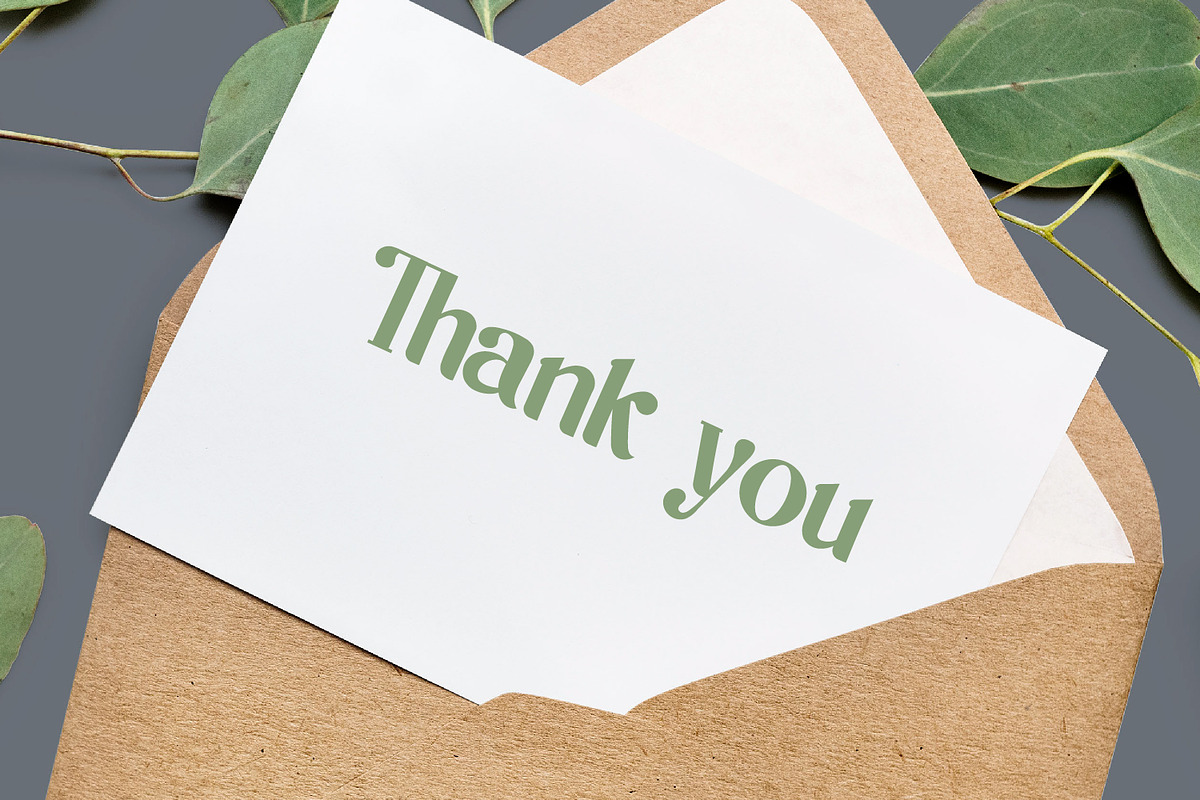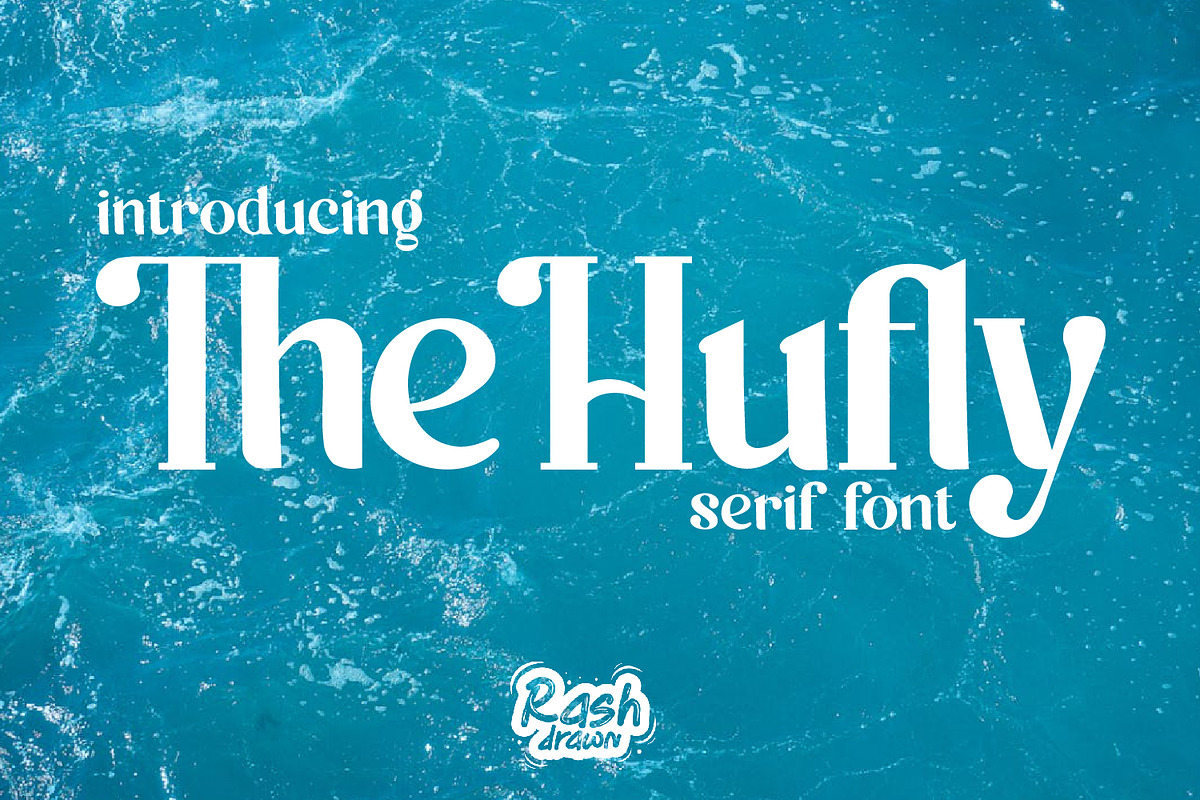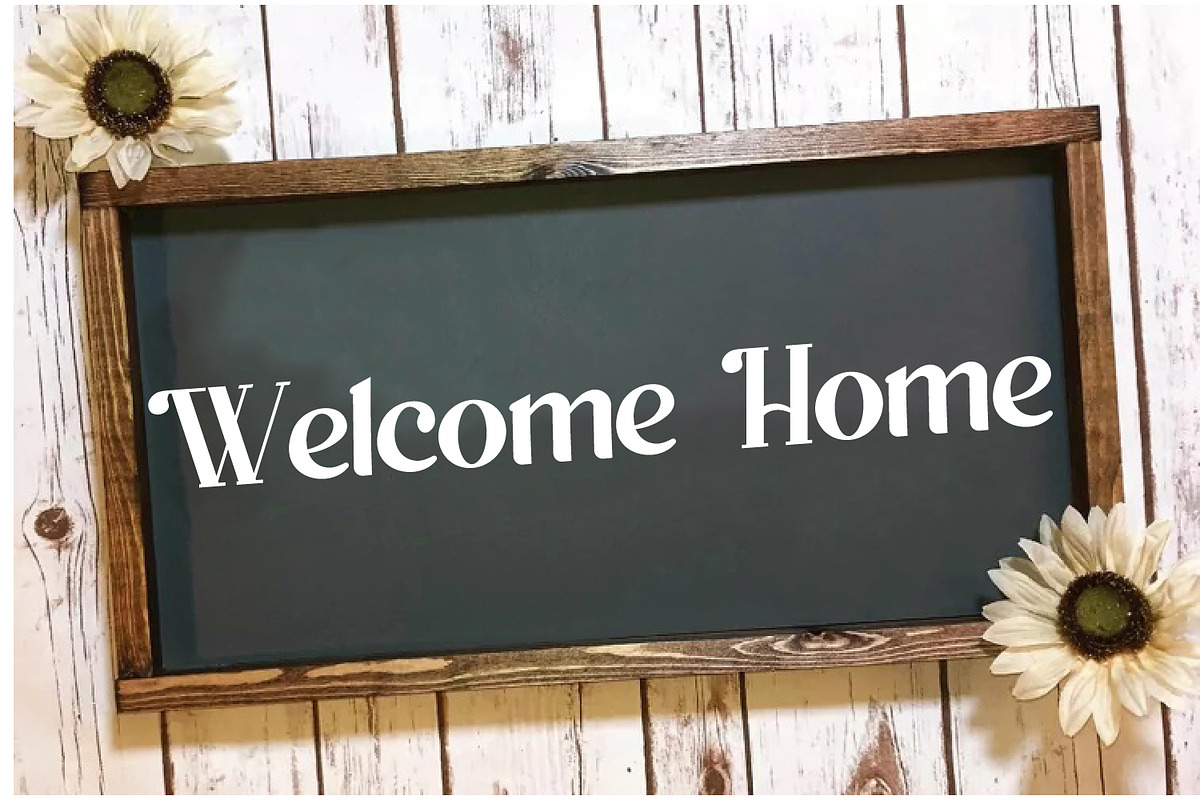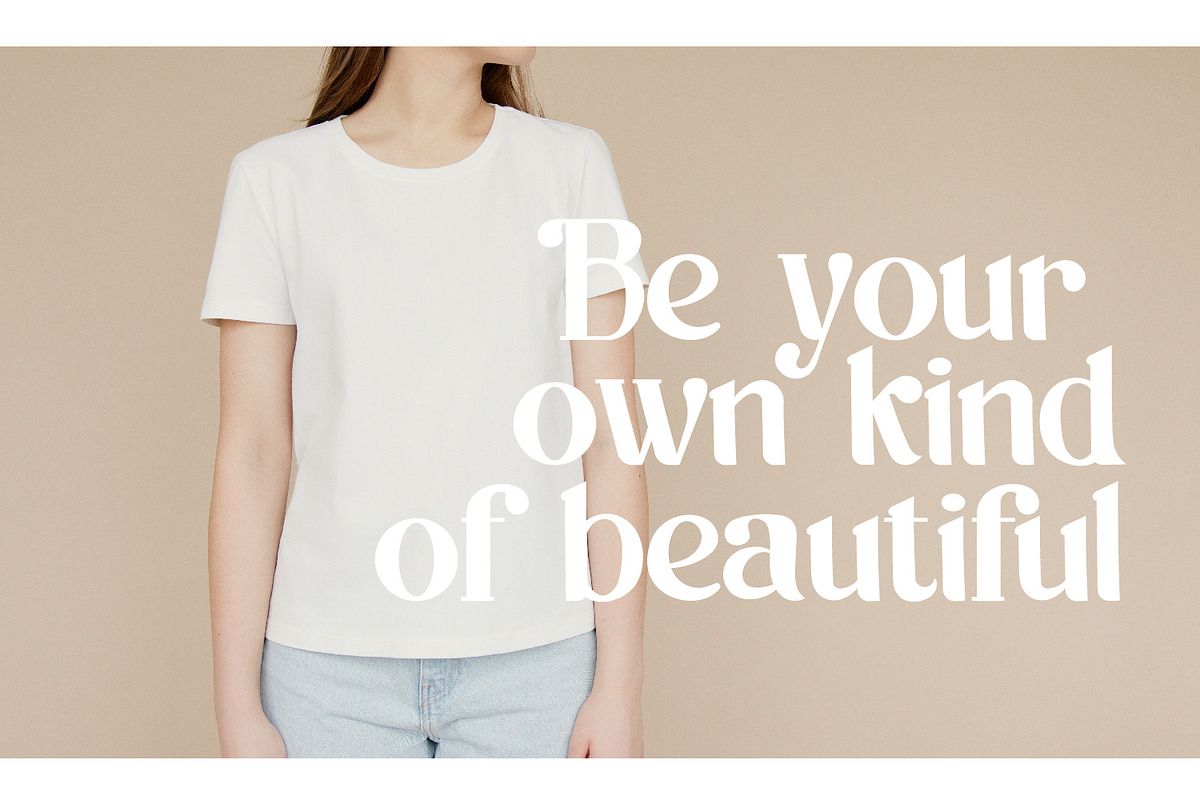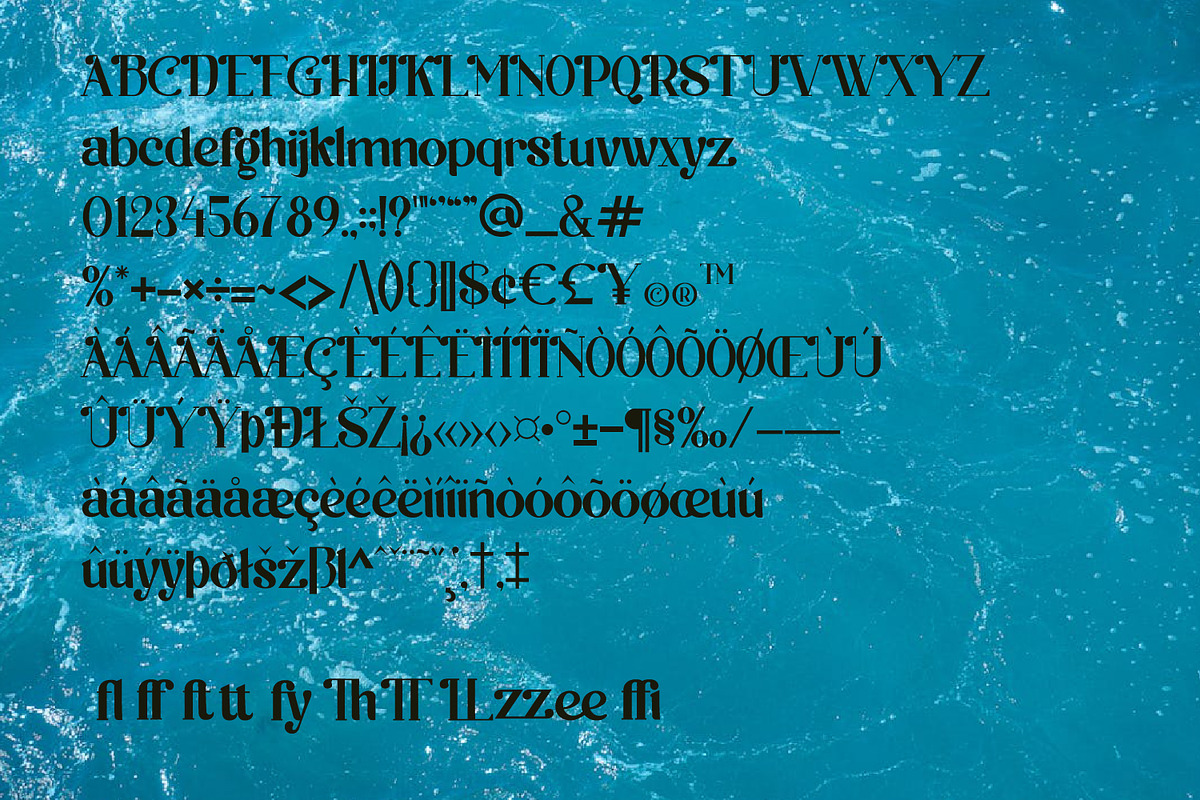
TheHufly
TheHufly is a cool and modern hand drawn serif font. Whether you’re using it for crafts, digital design, presentations, or making greeting cards, this font has the potential to become your favorite go-to font, no matter the occasion.